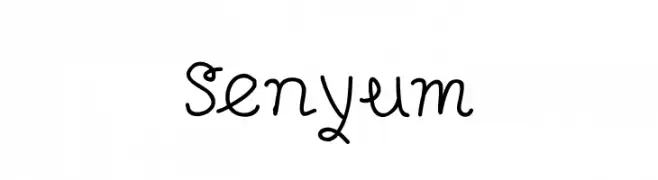
( Lauren Thompson - www.nymfont.com/ )
A bold, serif font with dramatic strokes and high contrast, ideal for impactful headlines.
( Martin Sørensen )
A modern, geometric sans-serif font with balanced proportions and clean lines.
( Phelan Riessen - phelanriessen.com )
A distressed, vintage-style font with a rugged, weathered appearance.
( Phelan Riessen - phelanriessen.com )
A bold, distressed font with a vintage, grunge aesthetic.
( Rodrigo Fuenzalida - www.rfuenzalida.com )
A bold, rounded, and playful font with a modern and friendly style.
( Sengkeo Vangxiengvue - www.facebook.com/vangxiengvue )
A modern, geometric font with rounded edges and uniform width.
( Sentype - Saidi Senhikari - www.behance.net/Senhikari )
A bold, geometric font with sharp angles and clean lines, perfect for modern designs.
( Typodermic Fonts - Ray Larabie - www.typodermicfonts.com/ )
A bold, modern sans-serif font with clean lines and strong presence.
A bold representation of Braille, a tactile writing system for the visually impaired.
Bold, italicized font with a three-dimensional outline effect.
A bold, geometric font with an outline and filled style, offering a modern and cohesive look.
A bold, outlined, and italicized font with a modern, three-dimensional look.
A bold, outlined font with a modern and geometric style.
A modern, bold, and italicized font with consistent stroke thickness and a sleek design.
A modern, hollow, geometric font with consistent stroke width.
A modern, elegant script font with a slight slant and fluid, connected characters.
A hollow, geometric font with a modern and minimalist design.
A modern, rounded font with consistent stroke width and geometric shapes.
( 11th Floor - formerly www.xs4all.nl/~buro )
A bold, dynamic font with slanted, jagged cuts for a sense of speed.
( AARRGGHH! )
A decorative serif font with textured vertical lines and sharp serifs.
( CelestialStarMan - celestialstarman.deviantart.com )
A bold, geometric font with a modern and industrial aesthetic.
( Chequered Ink - chequered.ink/ )
A playful, handwritten font with bold, rounded strokes and a casual style.
( David Myriad Rosenbaum - davidmyriad.tripod.com/myriads.font.page.html )
A bold, angular typeface inspired by ancient scripts with a decorative and historical flair.
( David Myriad Rosenbaum - davidmyriad.tripod.com/myriads.font.page.html )
A bold, decorative font inspired by ancient scripts with angular, geometric shapes.
( David Myriad Rosenbaum - davidmyriad.tripod.com/myriads.font.page.html )
A thin, angular font inspired by ancient Phoenician and Moabite scripts.
( David Myriad Rosenbaum - davidmyriad.tripod.com/myriads.font.page.html )
Ancient cuneiform-inspired font with geometric, wedge-shaped glyphs.
( JFType )
A bold, italicized sans-serif font with a modern oblique style.
( JFType )
A bold, slanted, and dynamic font with geometric elements.
( JFType )
A bold, geometric font with a modern and assertive style.
( JFType )
A dynamic, angular italic font with a modern and sleek design.
( JFType )
A bold, italicized font with a modern, dynamic style and angular design.
( James Fordyce )
An ornate Gothic font with intricate detailing and medieval flair.
( Josen Tan - www.roblox.com )
( Livin Hell - www.geocities.com/crizcrack666/fonts.html )
A bold, angular font with sharp, pointed elements and a dramatic, modern gothic style.
( Livin Hell - www.geocities.com/crizcrack666/fonts.html )
A distressed, graffiti-like font with jagged, uneven strokes and a rebellious aesthetic.